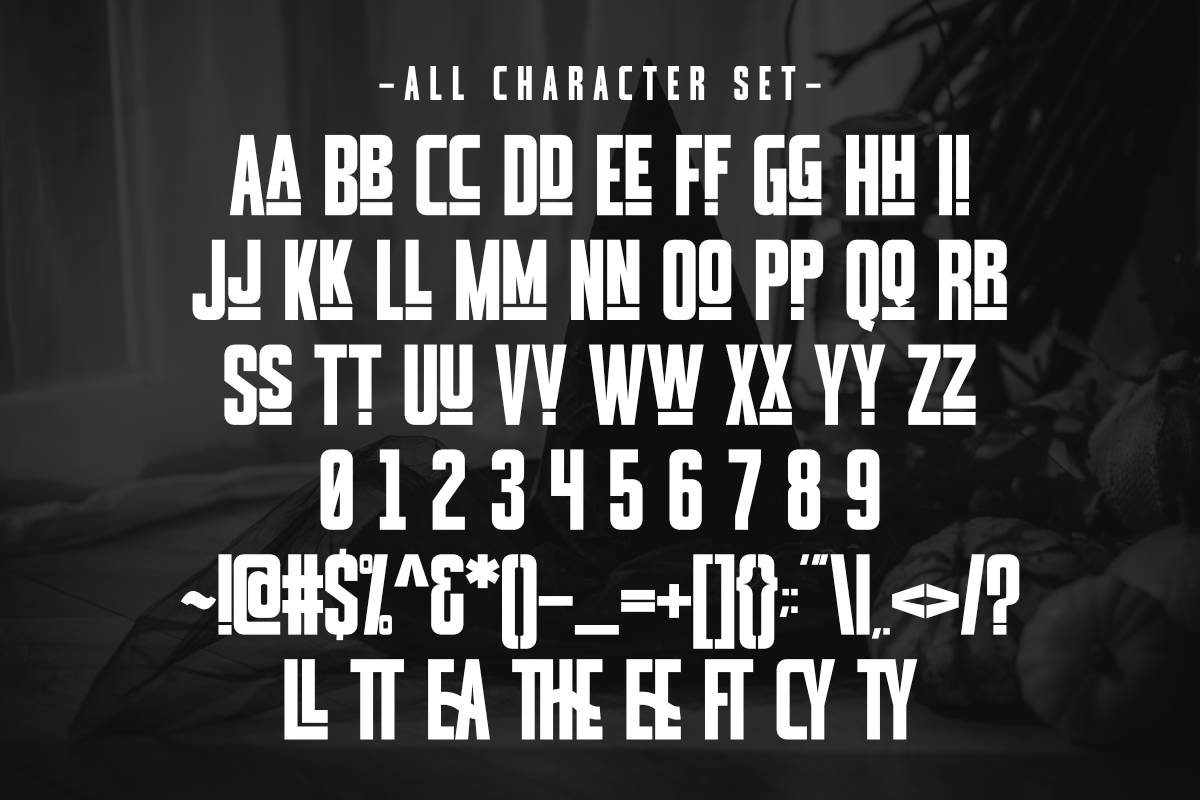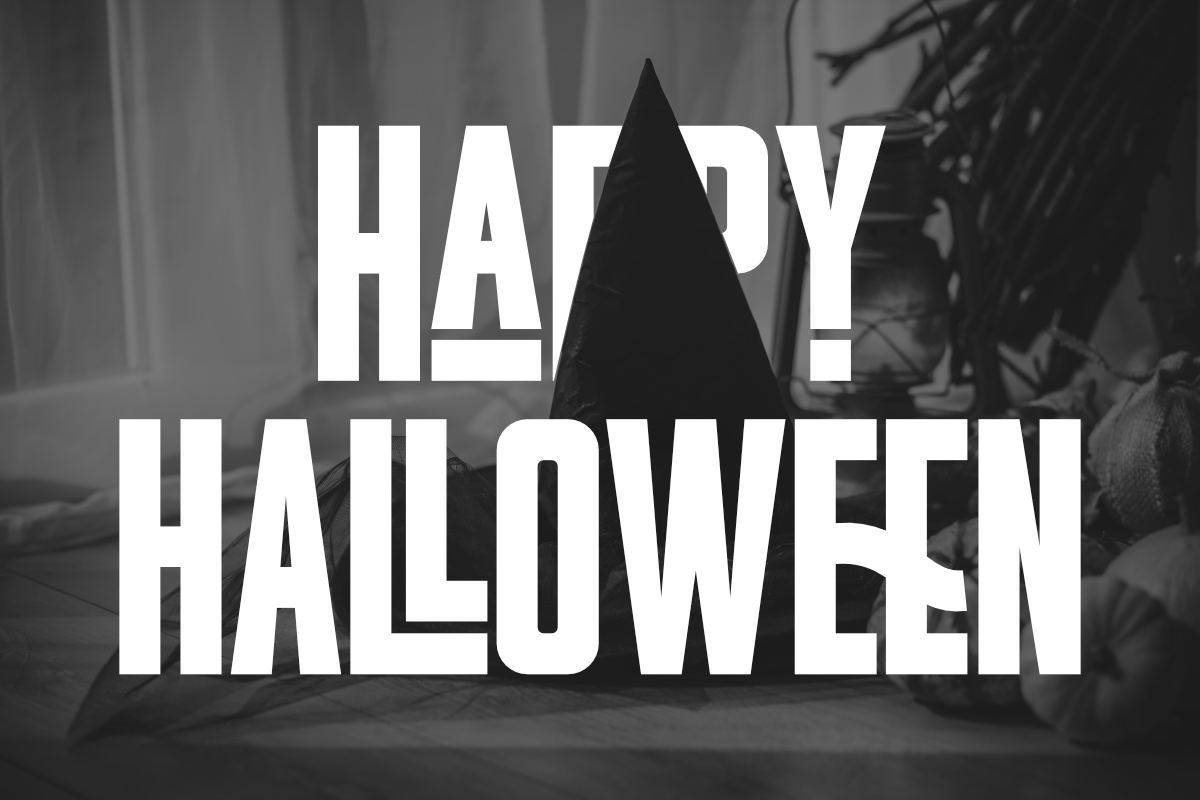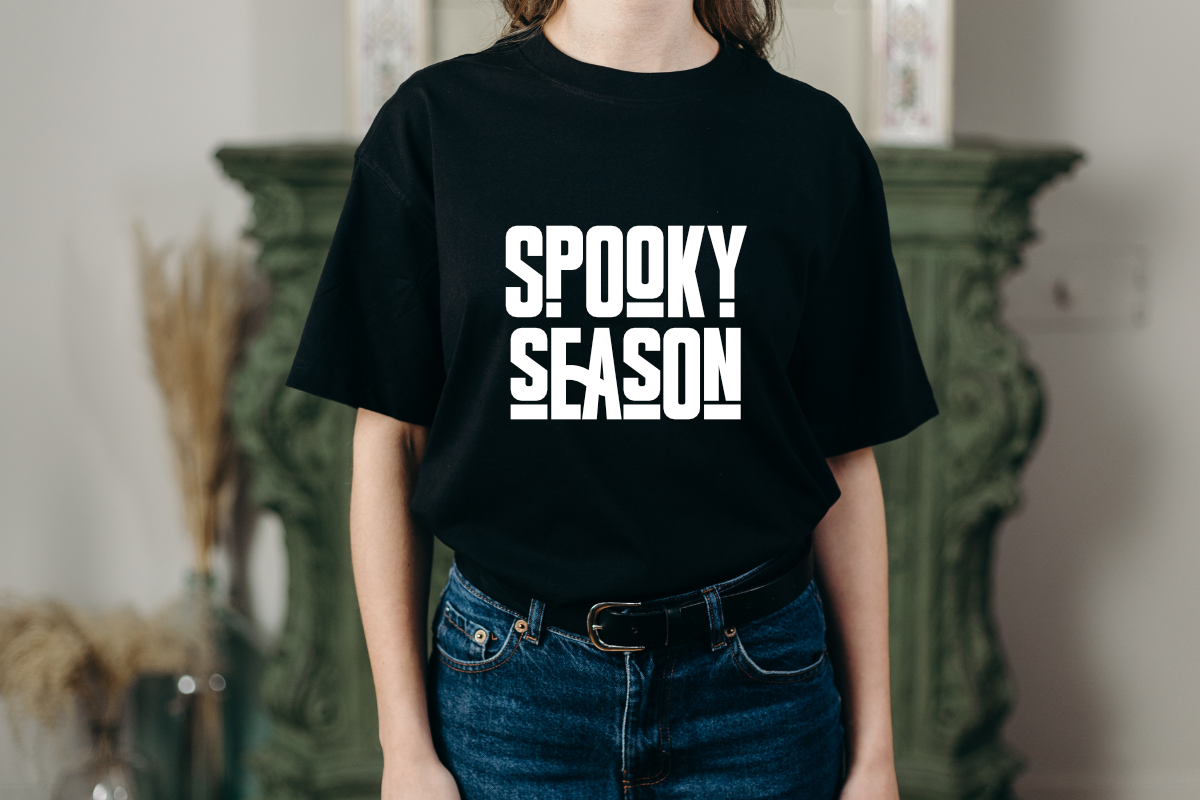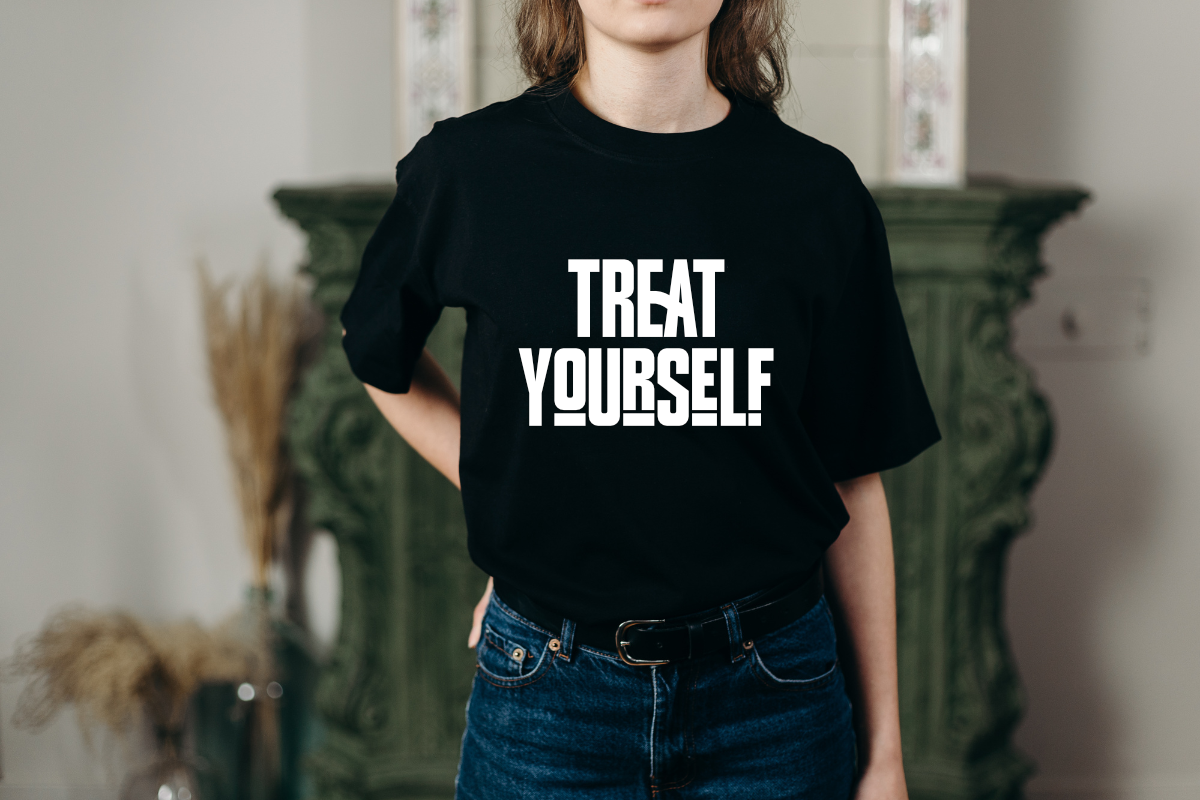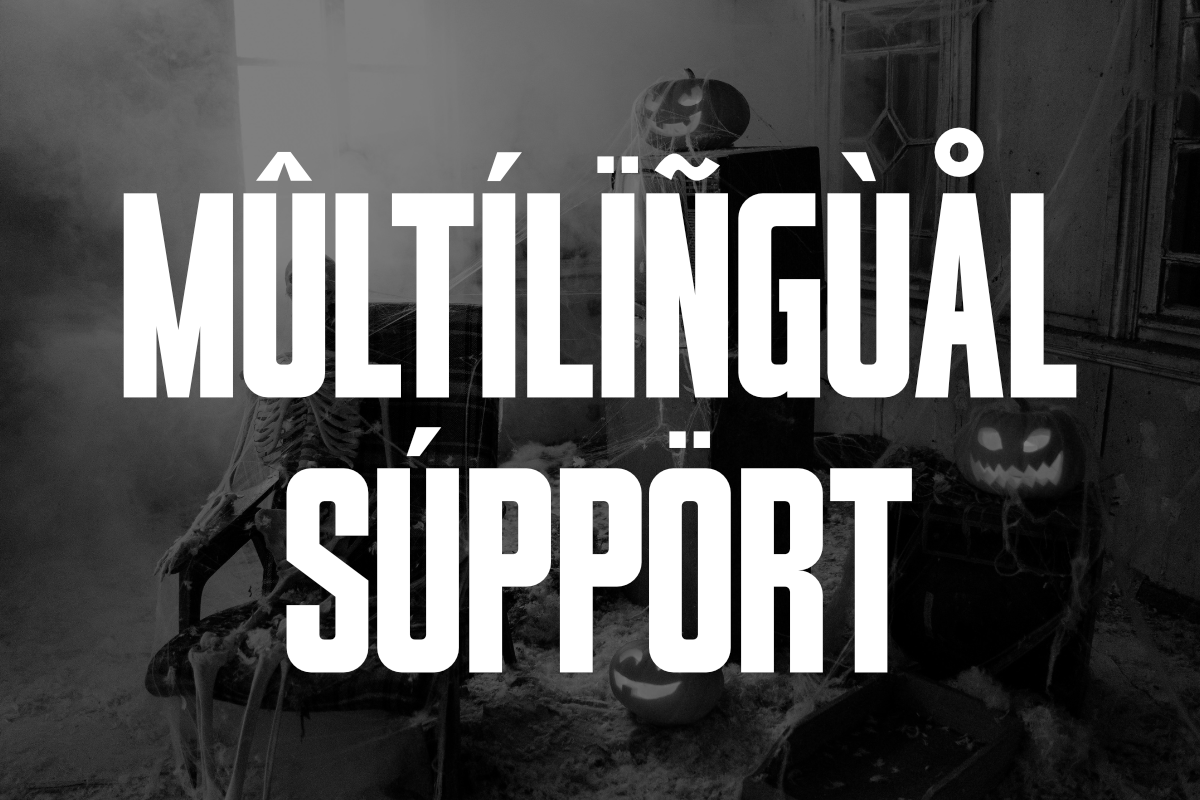
Halloween - Modern Sans Serif
Halloween is a modern and clean sans serif font perfect for T-shirt designs, POD, DIY, and laser cuts. Featuring bold, condensed letterforms with unique, playful cuts and angles, this font adds a spooky yet sophisticated touch to your creative projects. Ideal for crafting, branding, and more.